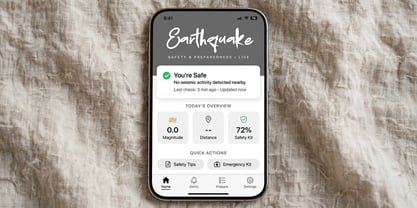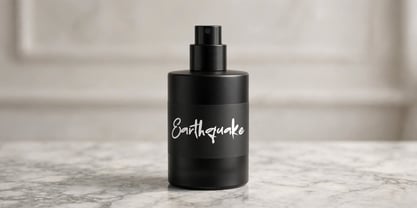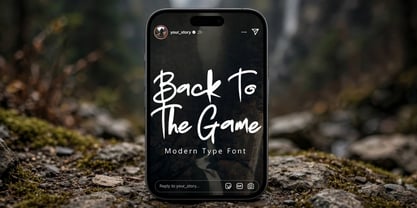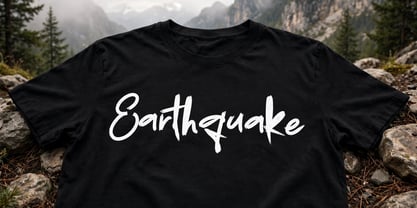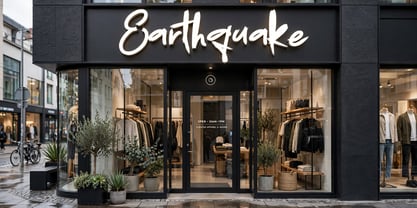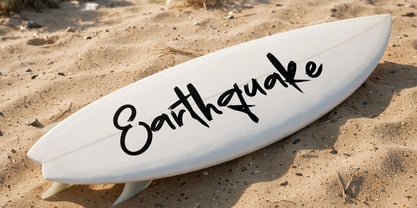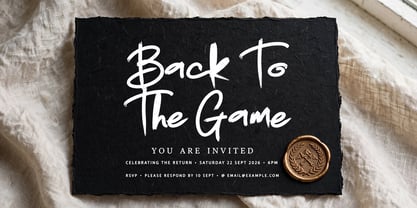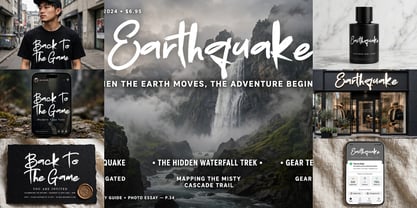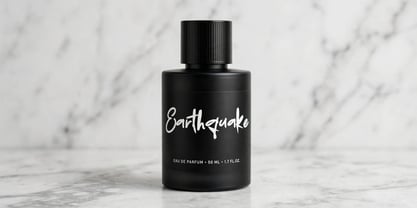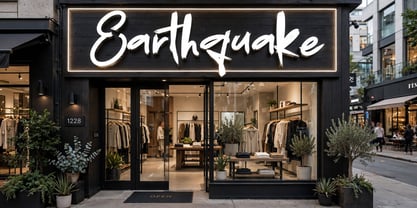
Earthquake
by Ayska
This is Earthquake - Brush, rough or grunge style script display font for your new projects. Handwritten with organic brush marker. Great for grunge, urban or artistic projects. The font is suitable for design for various things, including logo design, packaging, advertising, product design, websites, blogs and much more.
Designers: Dhoni Trihatmoko
Foundry: Ayska